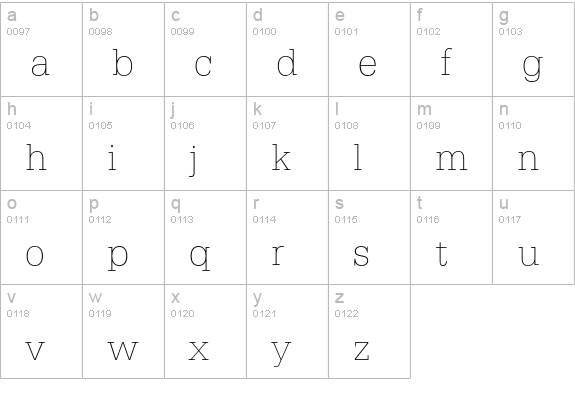
Serifa Thin Font Details
Serifa Thin is a delicate, low-contrast variant in the Serifa typeface family \xE2\x80\x94 well suited to fashion editorial, minimal branding, and high-contrast display.
Serifa Thin font is a beautifully crafted typeface that effortlessly combines elegance and sophistication. With its slender and delicate strokes, this font exudes a sense of refinement and grace, making it perfect for projects that require a touch of elegance. Designed with meticulous attention to detail, Serifa Thin font offers a unique and distinctive look that is both modern and timeless. Its slender letterforms create a harmonious balance between legibility and style, making it an ideal choice for a wide range of design applications. Whether you're working on a logo, branding materials, invitations, or any other creative project, Serifa Thin font will elevate your design and give it a touch of sophistication. Its subtle curves and thin strokes add a sense of delicacy and finesse to any text, making it visually captivating and pleasing to the eye. And the best part? Serifa Thin font is available for free download at FontsMarket.com. This means that you can easily access and use this stunning typeface in your projects without any cost. It's a fantastic opportunity to enhance your design work with a high-quality font, without breaking the bank. So why wait? Download Serifa Thin font today from FontsMarket.com and let your creativity soar. Whether you're a professional designer or a novice enthusiast, this font will undoubtedly add a touch of elegance and sophistication to your projects. Don't miss out on this incredible free font and take your designs to the next level.